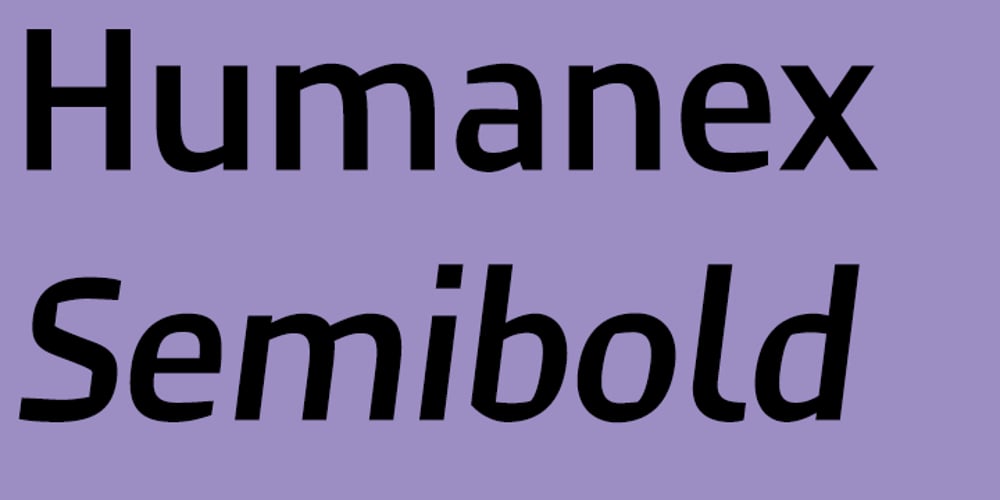
Humanex Font Family was designed by published by Sébastien Truchet. Humanex contains 6 styles and family package options. Humanex is the first text typeface of Sébastien Truchet. He created it during the year of postgraduation ‘Systèmes graphiques, typographique & language’ in Amiens. The beginning stages of the font development involved calligraphic research based on humanistic ductus. Sébastien’s goal was to introduce modules in a lineal structure. Downstrokes and upstrokes are homogeneous. Links between stem and curve are straight. It gives solidity and thickness to the typographical composition. The first version was a Semi Bold version and its italic. This typeface gave a blackest text. You can see the first display typeface, Humanex Ultralight. Sébastien kept the Semibold structure in order to make a thin typeface. Its goal is to give support to the Semibold version. It is a good typeface in big sizes. In order to add a better legibility, Sébastien built a Book version to have a brightest grey of text. The reading is more comfortable.